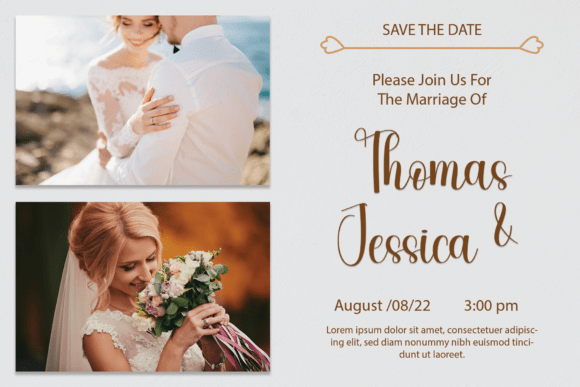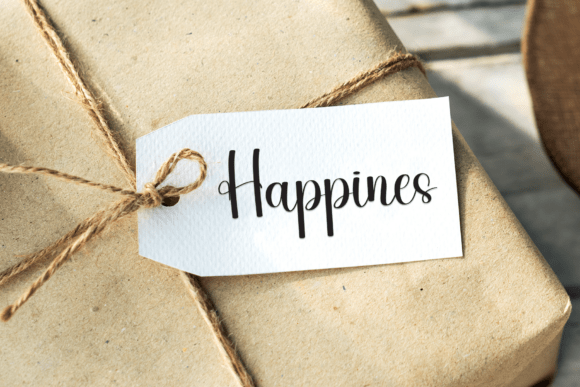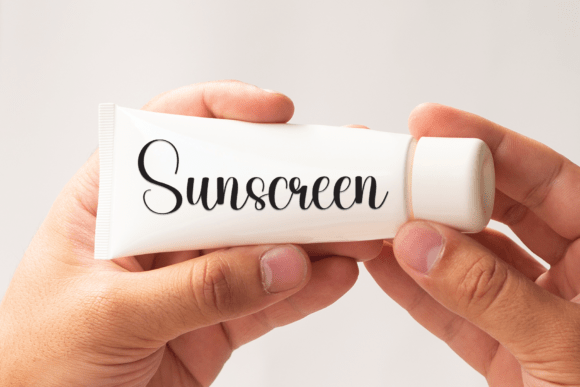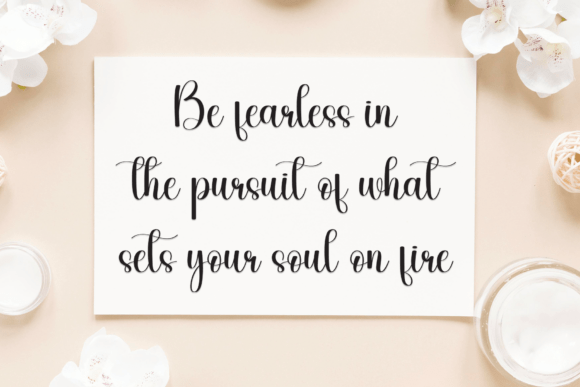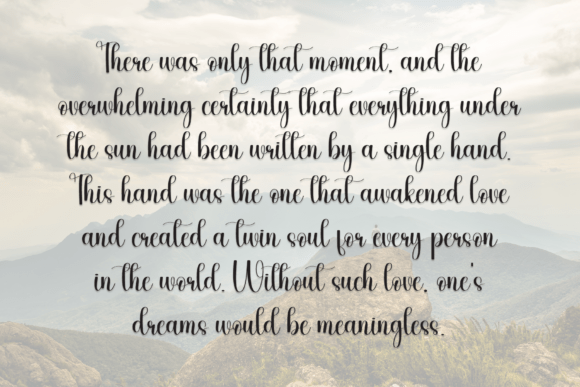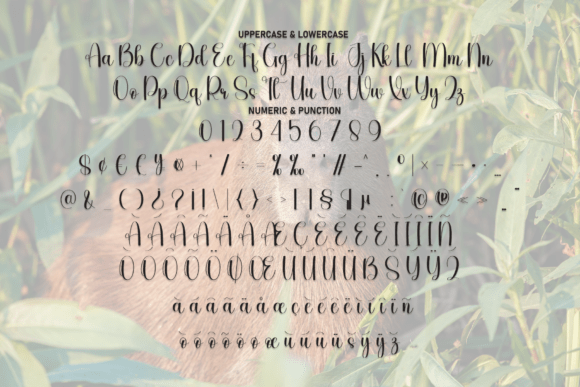
Introducing Capybara Font: The Ultimate Handwritten Display Font for Your Artistic Expressions
Are you tired of using the same old fonts for your artwork, wedding invites, and greeting cards? Do you want to add a touch of elegance and warmth to your designs? Look no further than Capybara Font, a standout handwritten display font that infuses a distinct personal flair into your creations. In this article, we’ll unveil the entrancing charm of Capybara Font and explore how it can elevate your artistic expressions.
The Embodiment of Grace and Fellowship
Capybara Font is more than just a font – it’s an experience. Known as the embodiment of grace and fellowship, this font’s enchanting allure breathes an air of joyful spontaneity into your artistic expressions. With its unique blend of elegance and warmth, Capybara Font is perfect for designers and crafters who want to add a touch of personality to their work.
Balancing Elegance and Warmth
One of the standout features of Capybara Font is its ability to balance elegance and warmth. This font is designed to be both sophisticated and approachable, making it perfect for a wide range of applications, from wedding invites and greeting cards to artistic pieces and more. Whether you’re creating a formal invitation or a playful greeting card, Capybara Font is sure to impress.
Perfect for Wedding Invites, Greeting Cards, and Artistic Pieces
Capybara Font is specifically designed to harmonize with the aesthetics of wedding invites, greeting cards, and artistic pieces requiring a flair of charm. With its unique and captivating design, this font is sure to add a touch of magic to your creations. Here are just a few ways you can use Capybara Font:
- Wedding Invites: Add a touch of elegance and sophistication to your wedding invitations with Capybara Font. Perfect for formal or informal weddings, this font is sure to impress your guests.
- Greeting Cards: Create personalized and heartfelt greeting cards with Capybara Font. Whether it’s a birthday, anniversary, or holiday card, this font is sure to make your card stand out.
- Artistic Pieces: Add a touch of whimsy and charm to your artistic pieces with Capybara Font. Perfect for illustrations, paintings, and more, this font is sure to bring your artwork to life.
What Makes Capybara Font So Special?
So, what makes Capybara Font so special? Here are just a few features that set it apart:
- Unique Design: Capybara Font has a unique and captivating design that’s sure to make your creations stand out.
- Elegant and Warm: This font balances elegance and warmth, making it perfect for a wide range of applications.
- Handwritten: Capybara Font is a handwritten display font, giving it a personal and authentic feel.
- Versatile: This font is perfect for a wide range of applications, from wedding invites and greeting cards to artistic pieces and more.
In conclusion, Capybara Font is a standout handwritten display font that’s sure to infuse a distinct personal flair into your artwork. With its unique blend of elegance and warmth, this font is perfect for designers and crafters who want to add a touch of personality to their work. Whether you’re creating wedding invites, greeting cards, or artistic pieces, Capybara Font is sure to impress. So why wait? Download Capybara Font today and start creating something truly special.